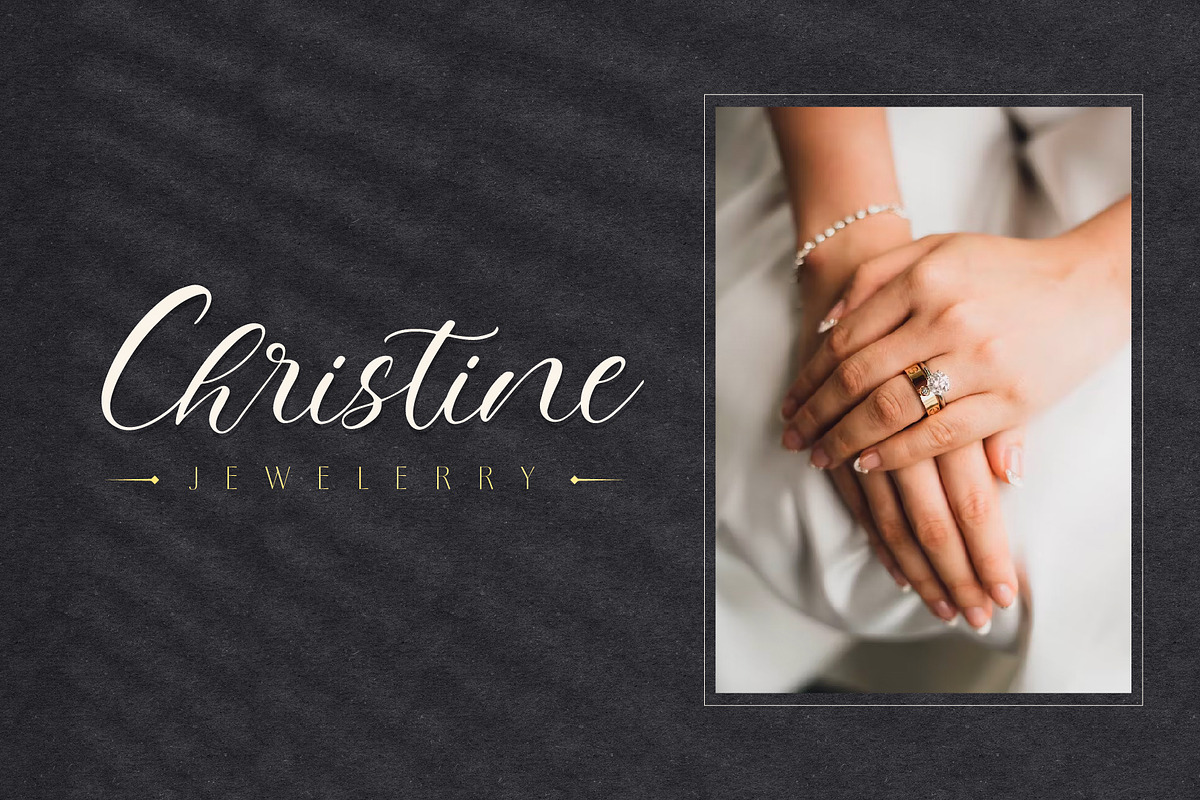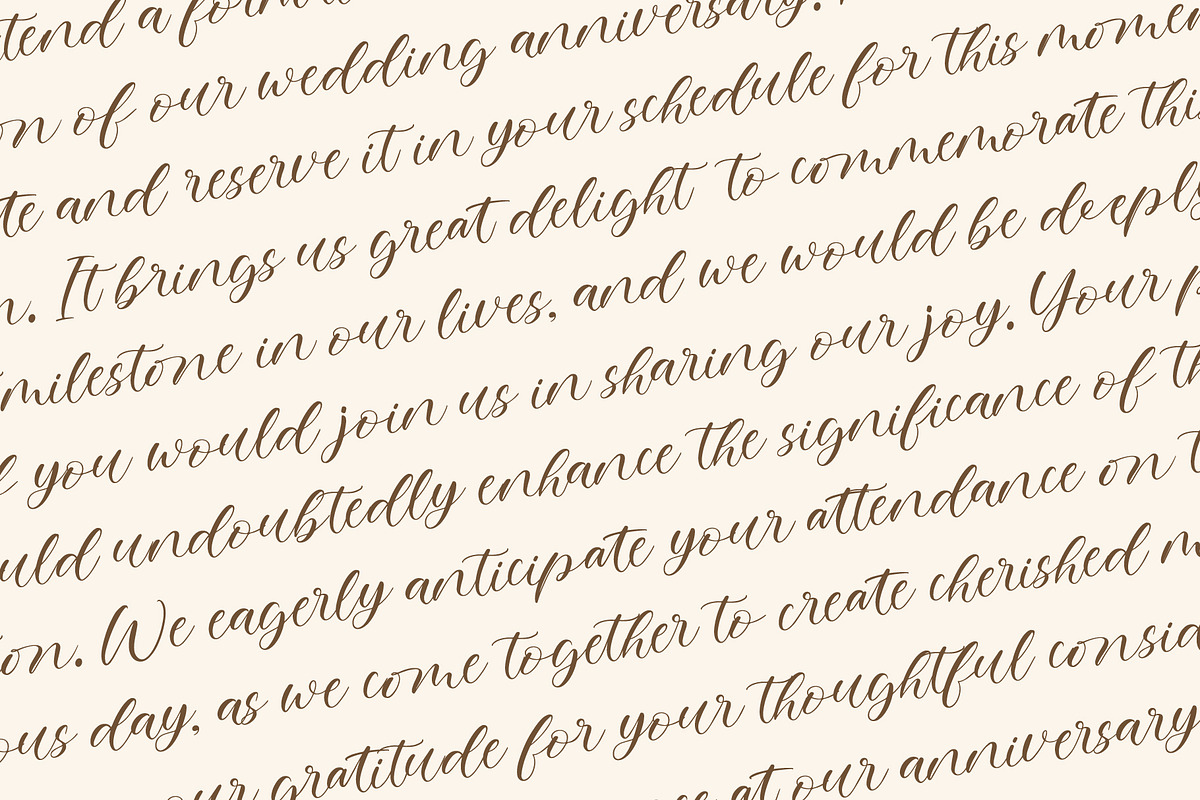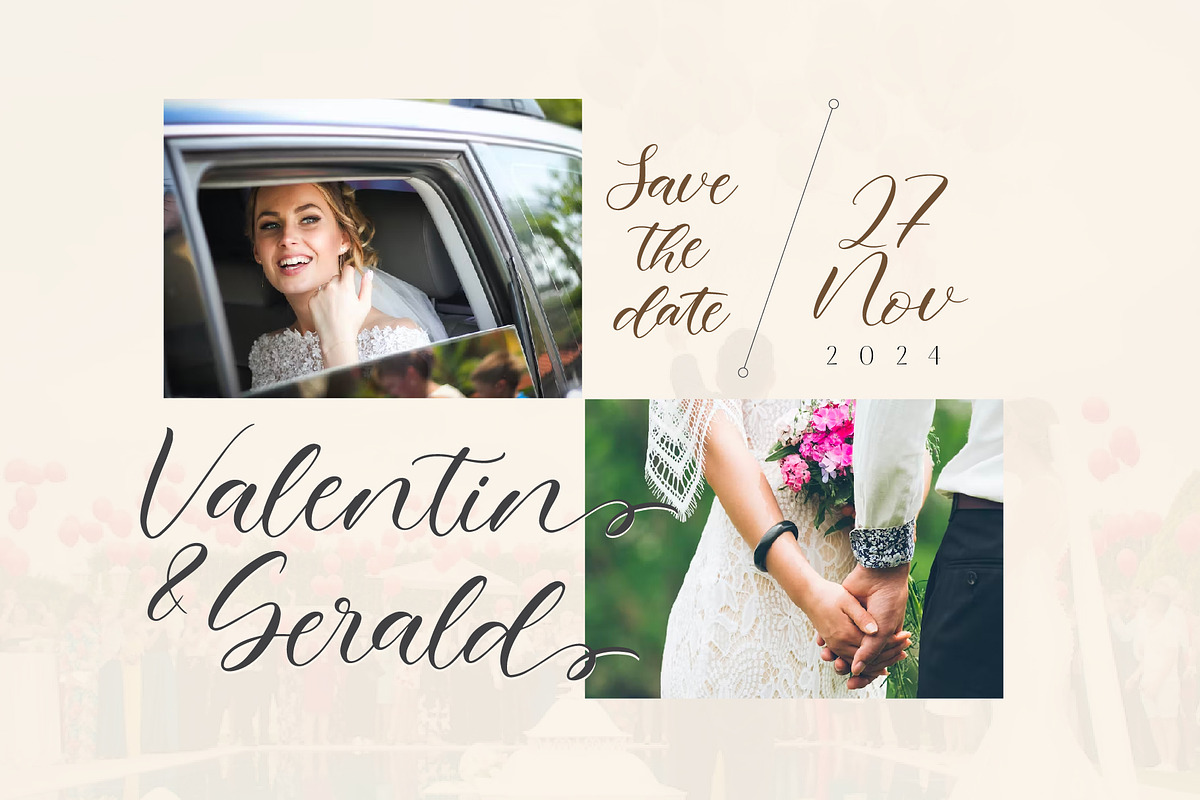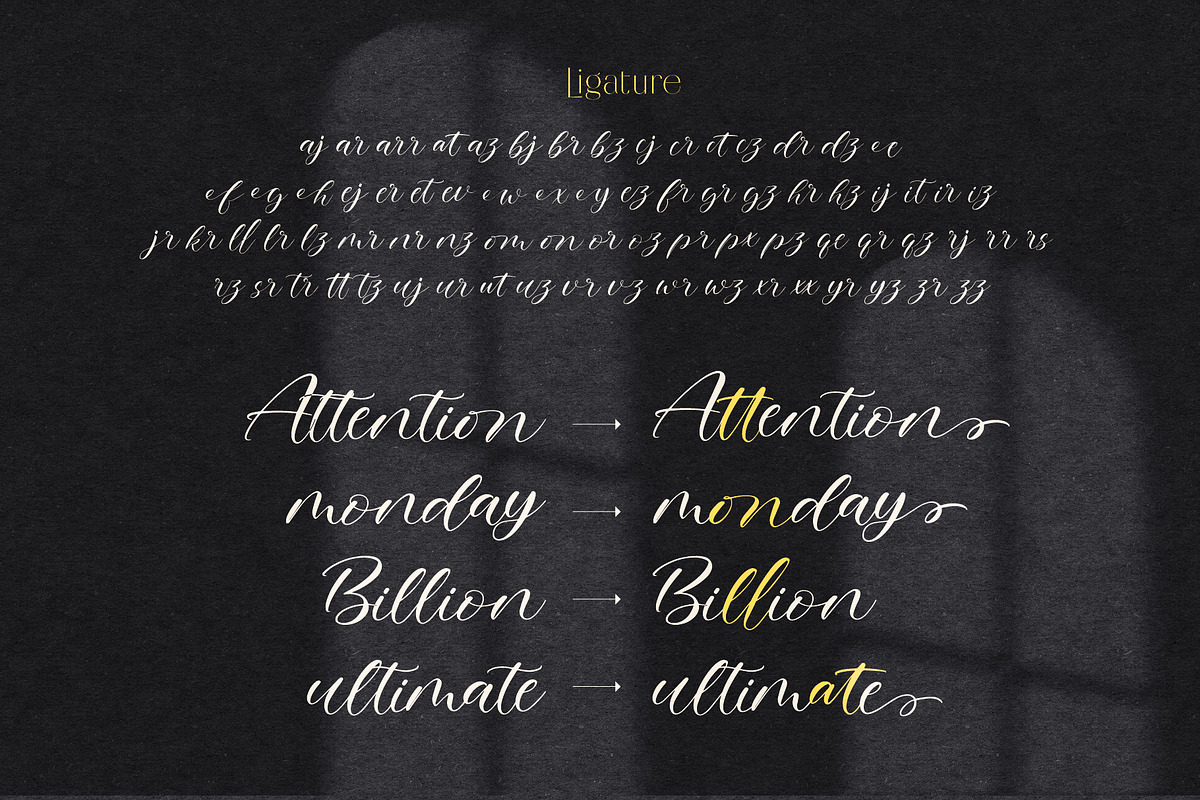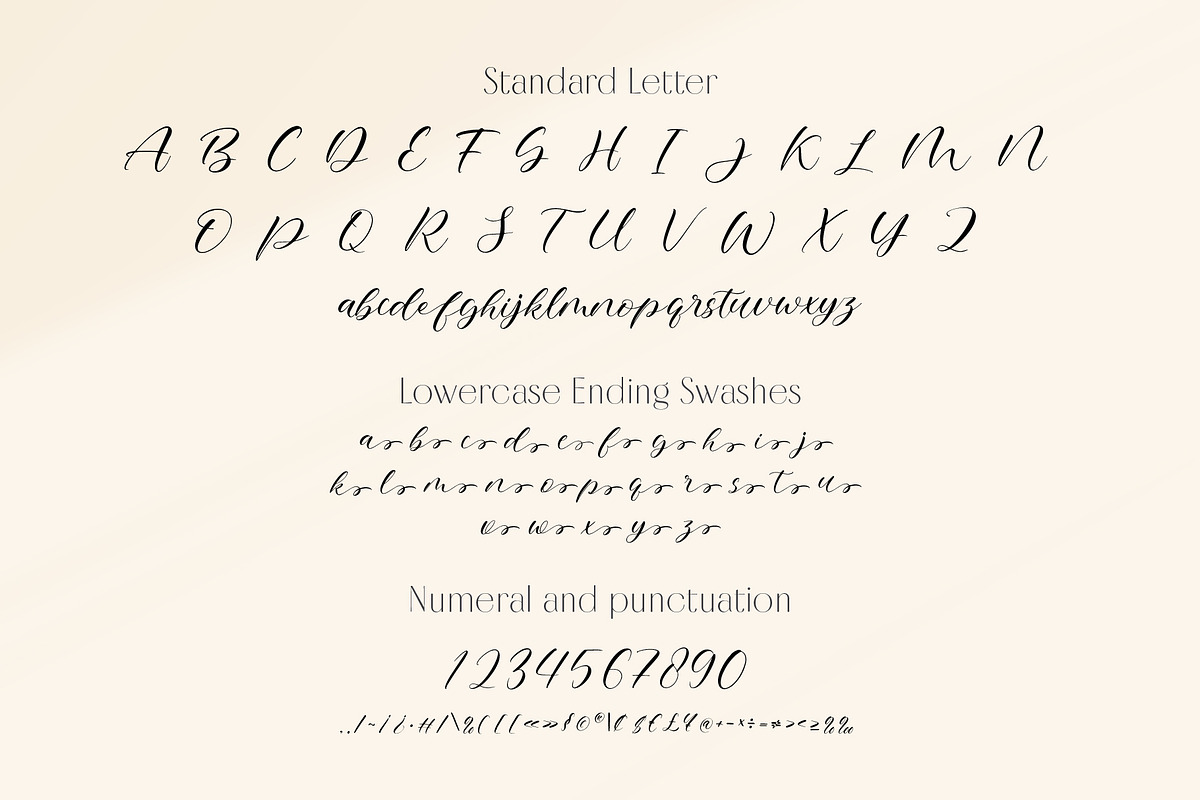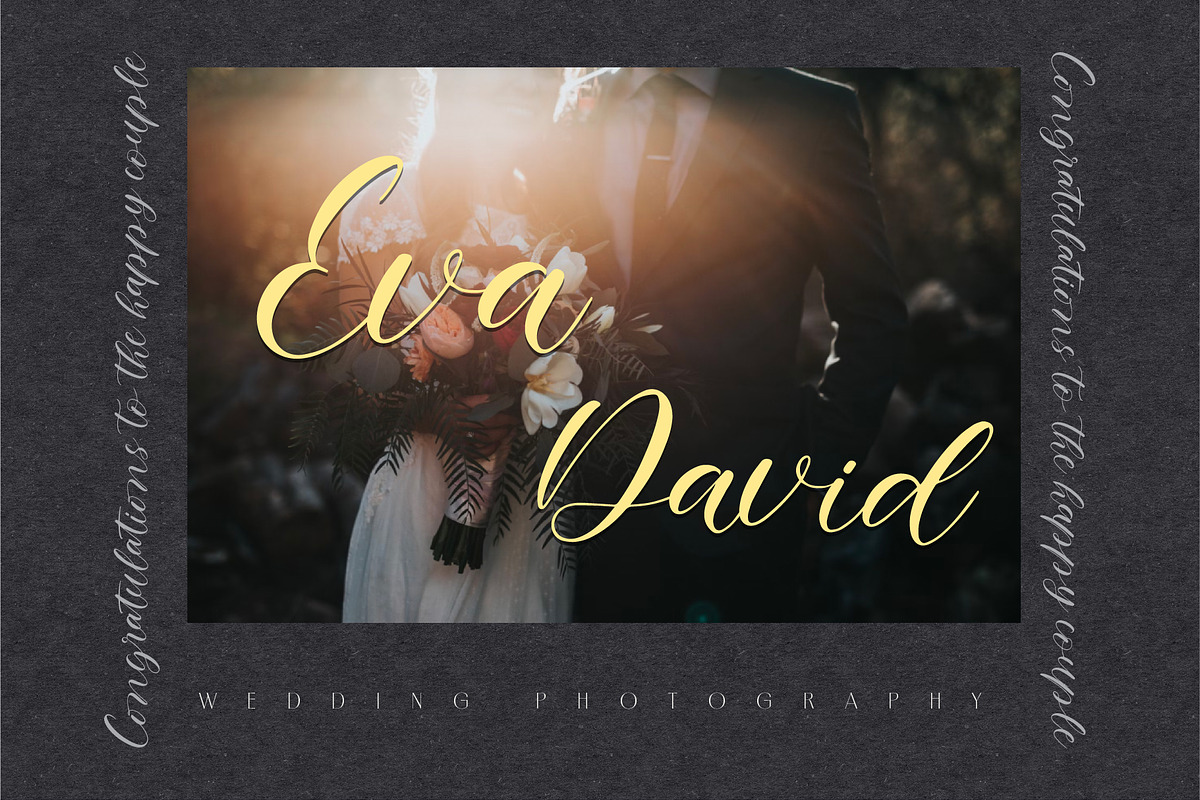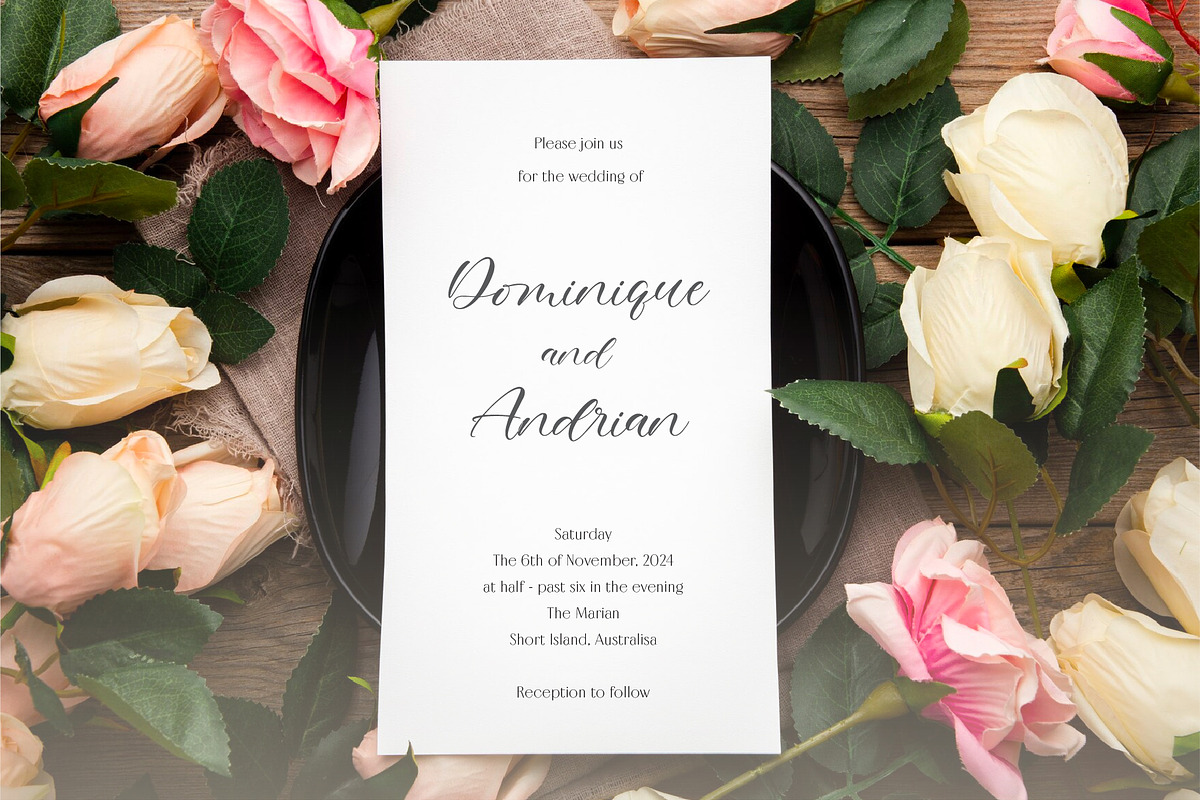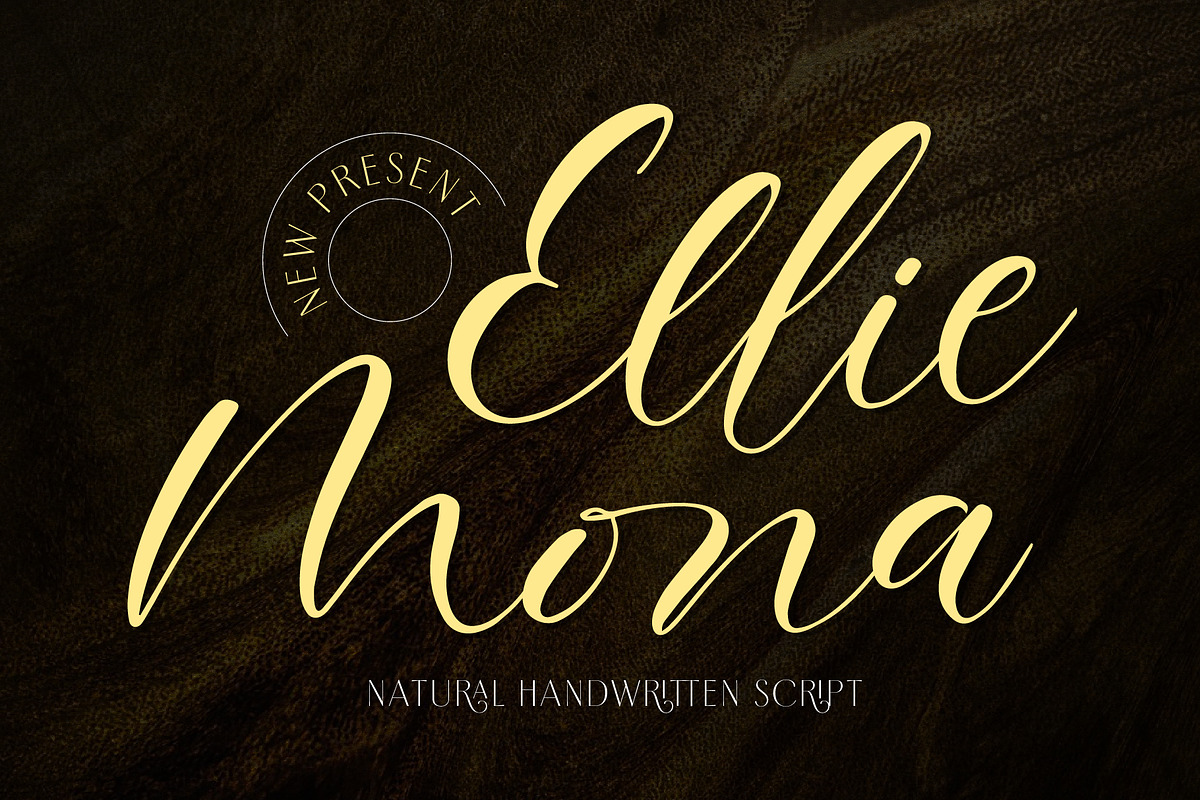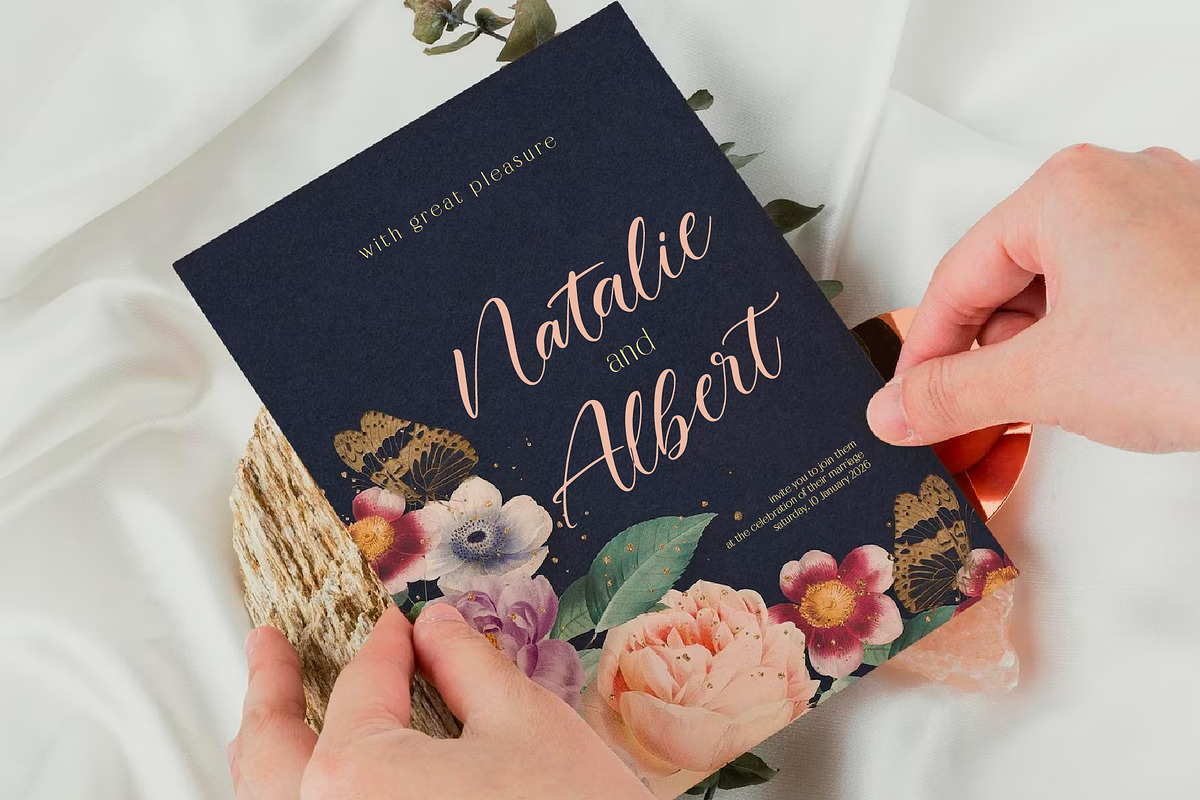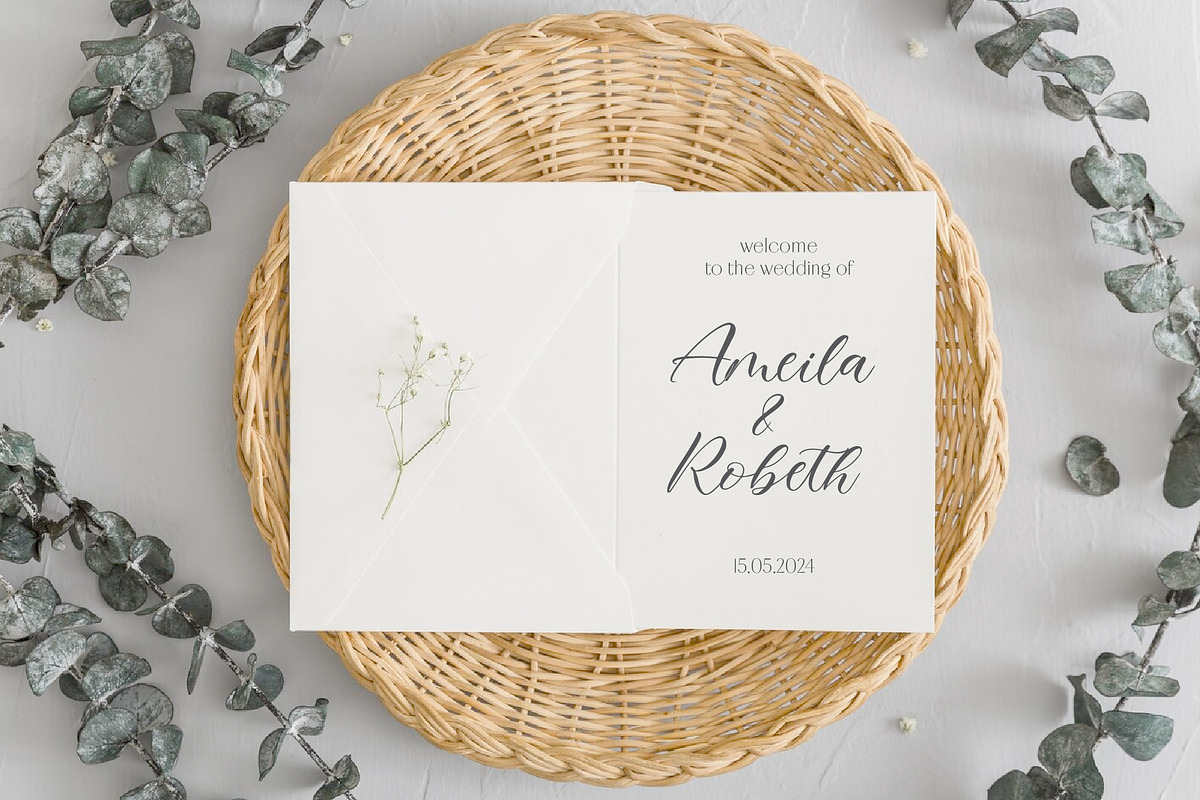
Ellie Mona | Handwritten Script
Ellie Mona font inspired by timeless classic calligraphy. Not too thin and not too thick, balanced and varied, this font was designed to enhance the beauty of your projects. An natural exquisite and delicate handwritten script font that exudes elegance. It features captivating letter alternatives and enchanting tails at end of each stroke.
Discover this font that not only offers easy pairing options with different font styles but also enhances the overall aesthetic when combined with serif type fonts. From Logotype to printed quotes, invitations to product packaging, headers to Letterhead, Apparel to Web design, Magazine to Book, this font is perfect for all your creative projects.
- Ligatures, Alternates